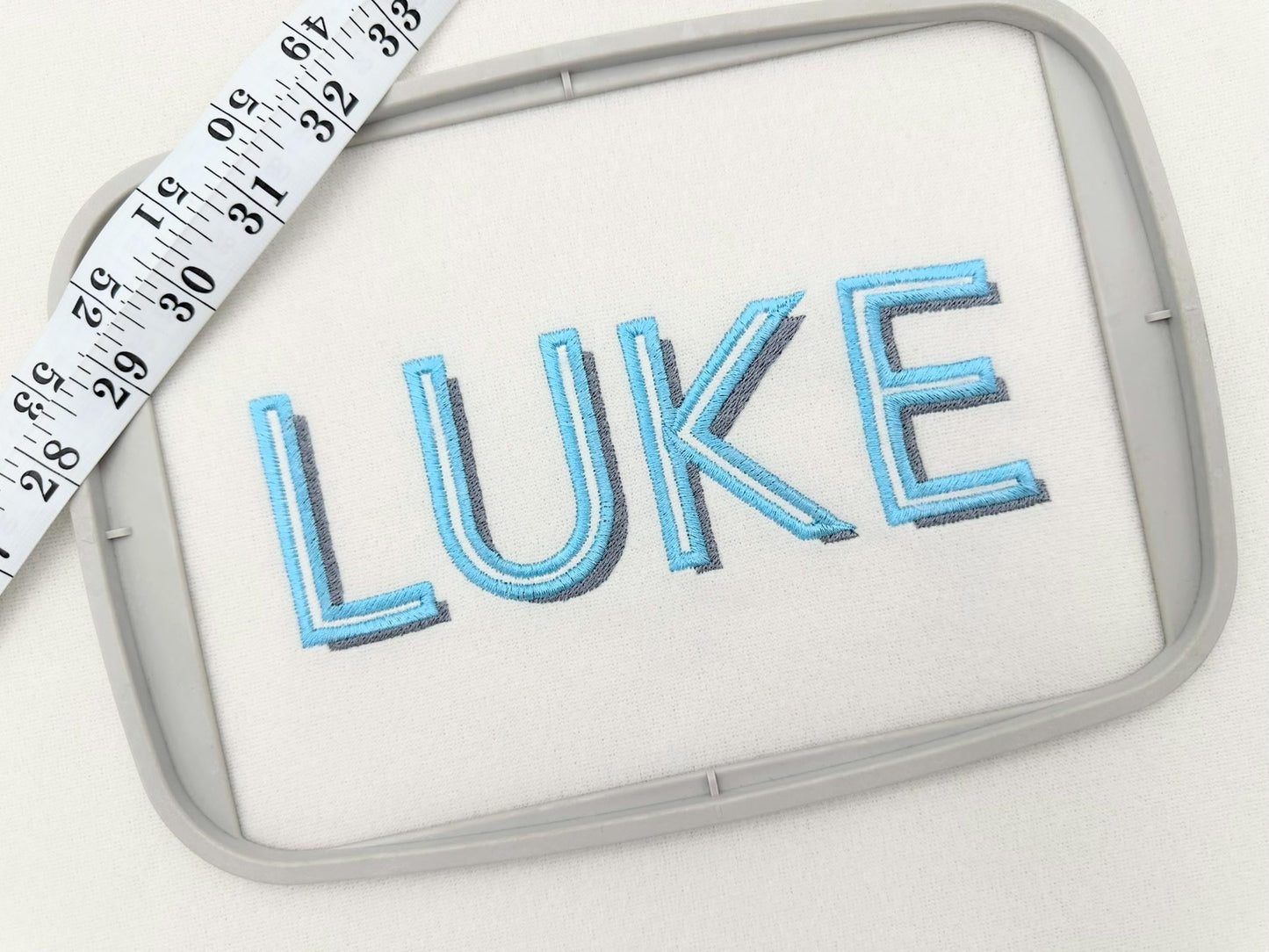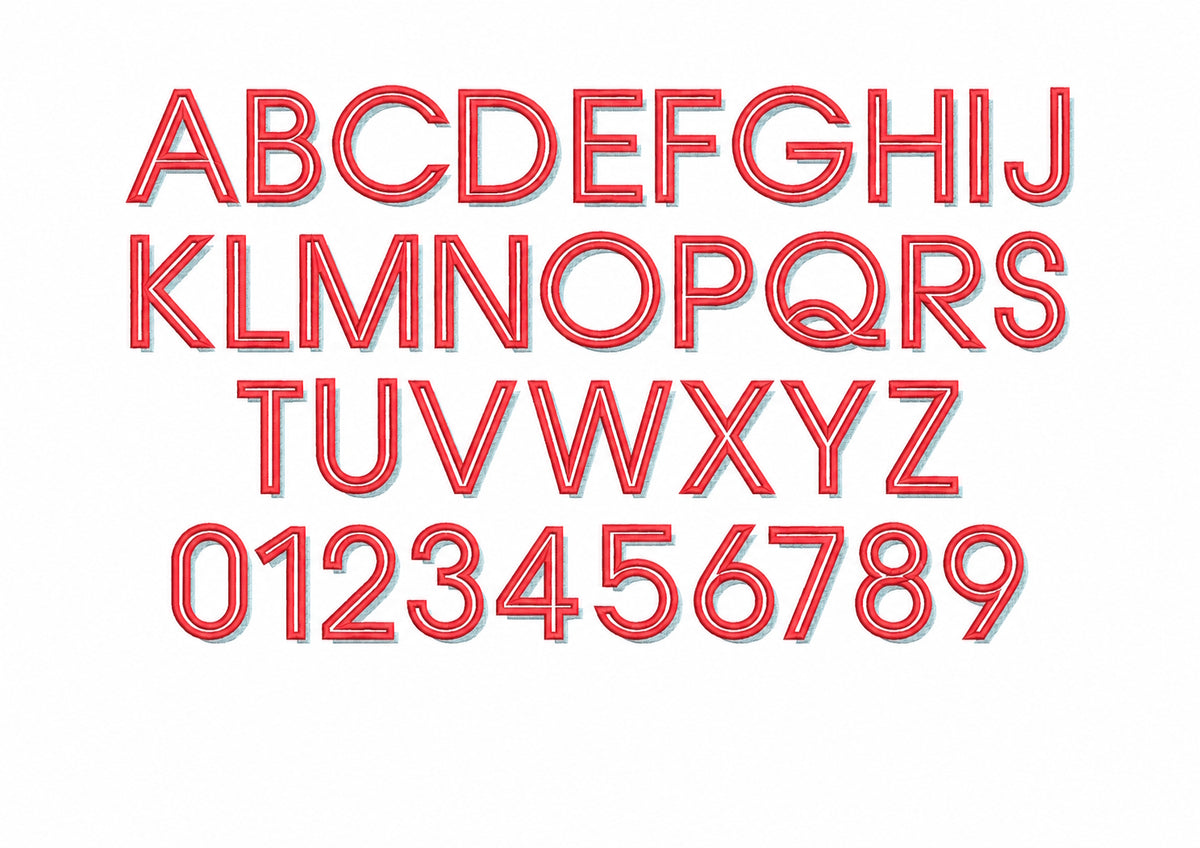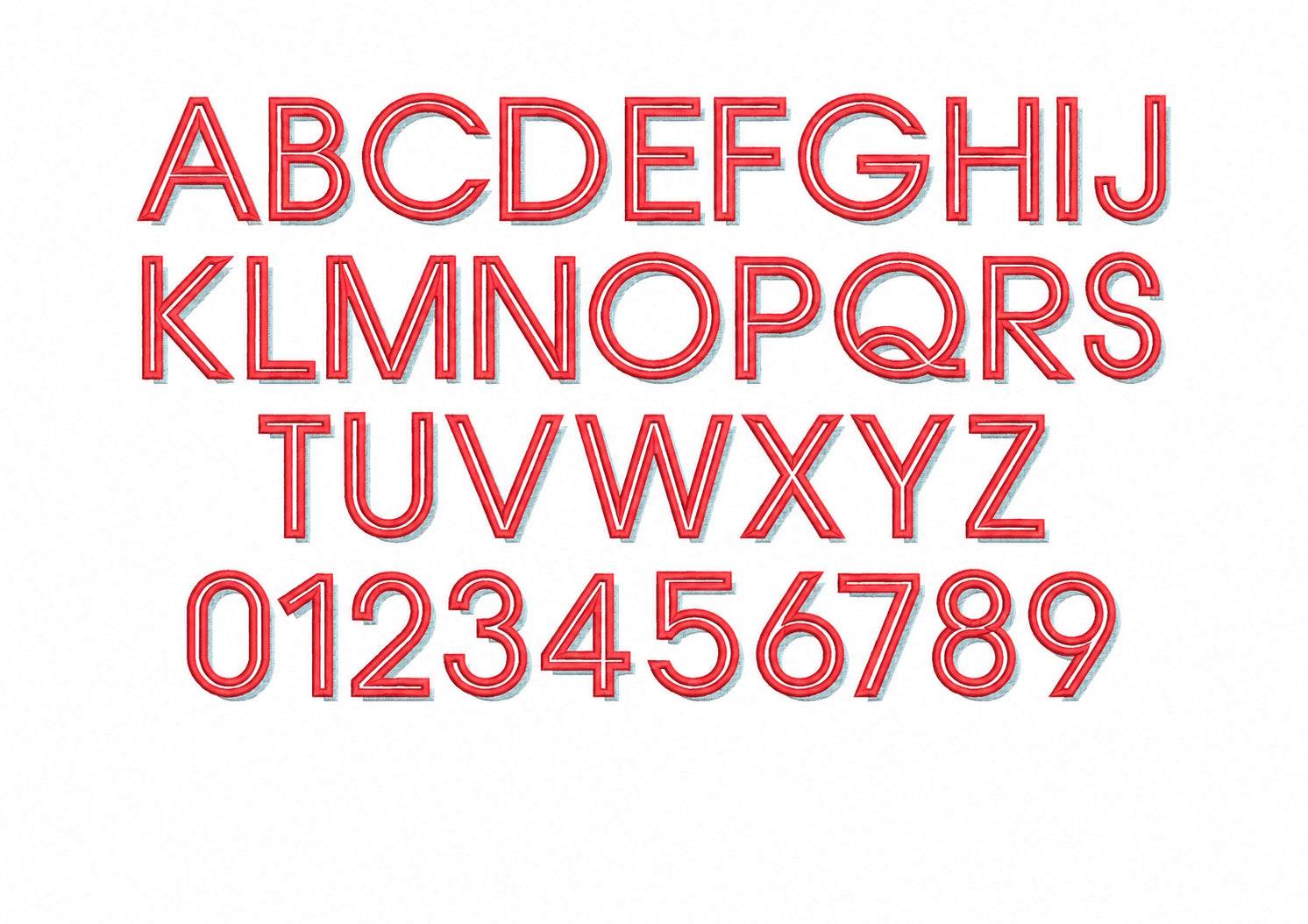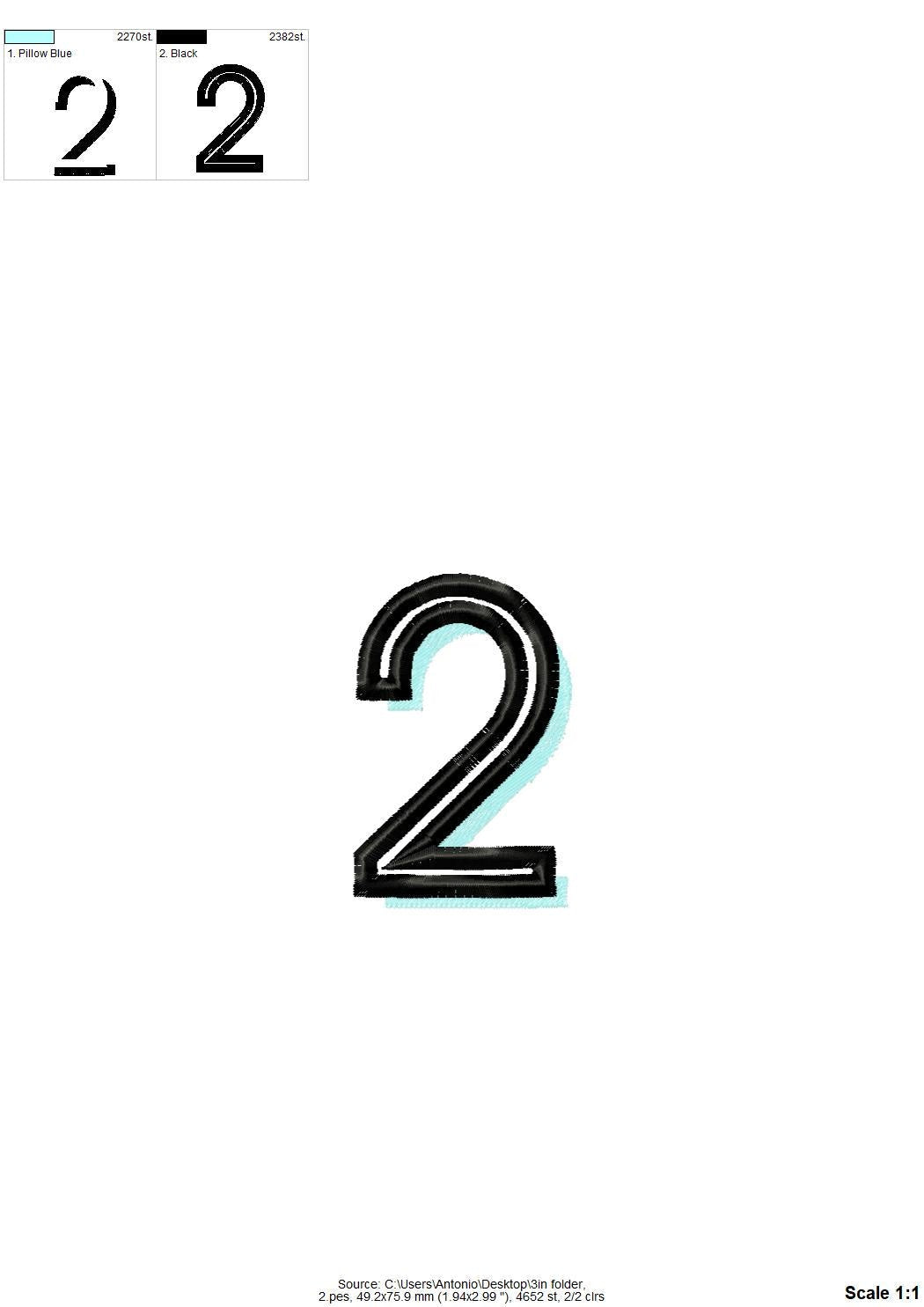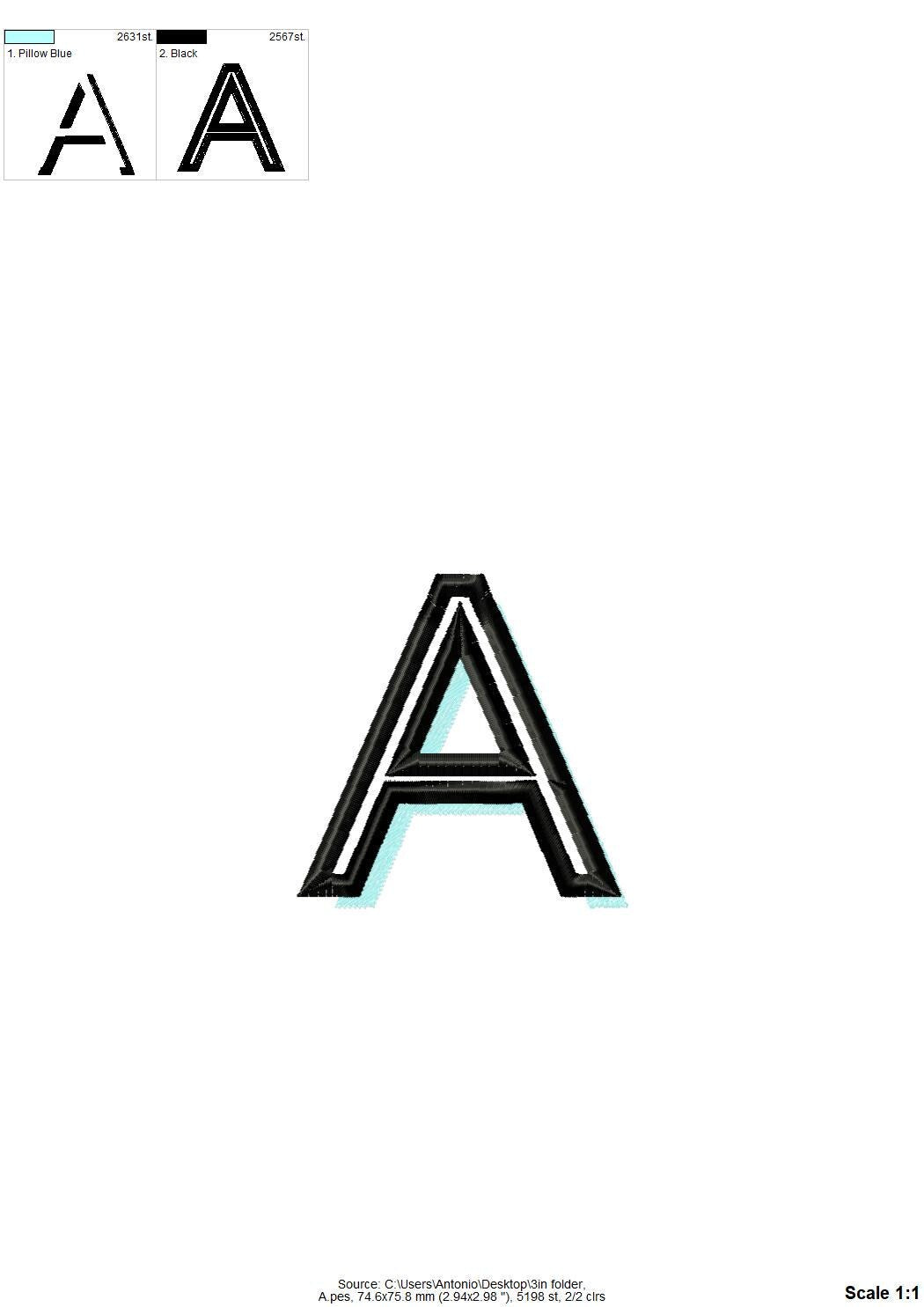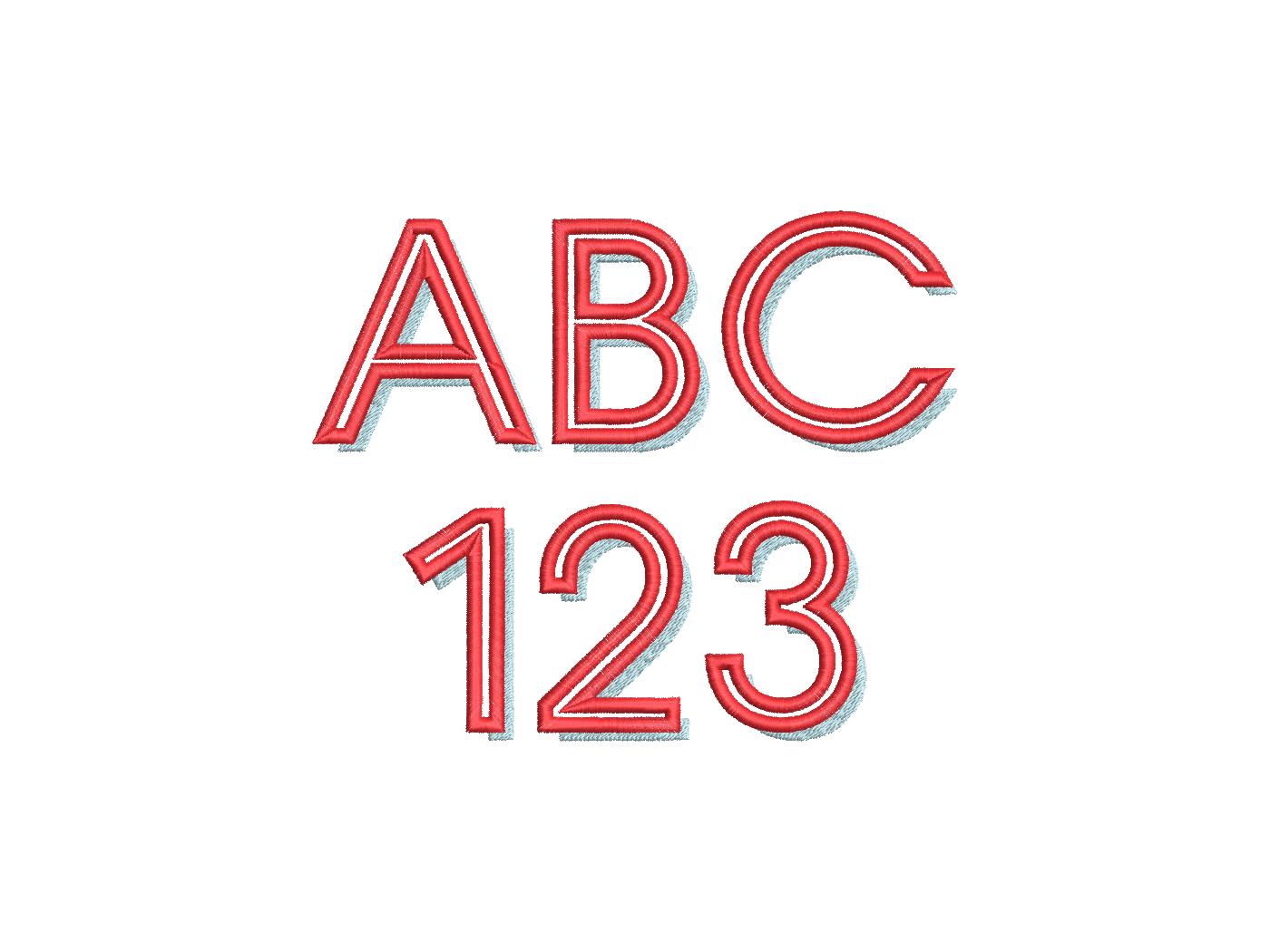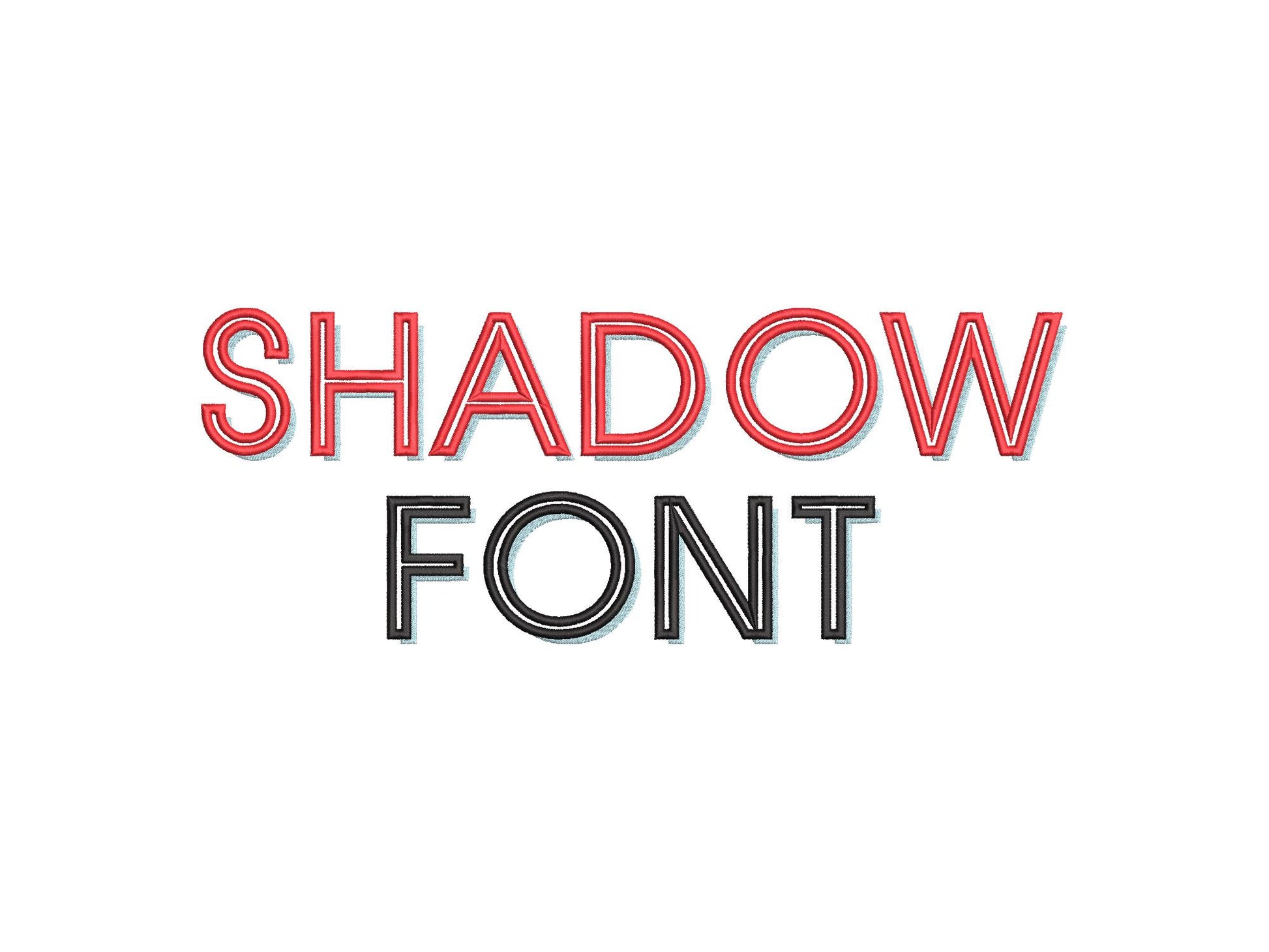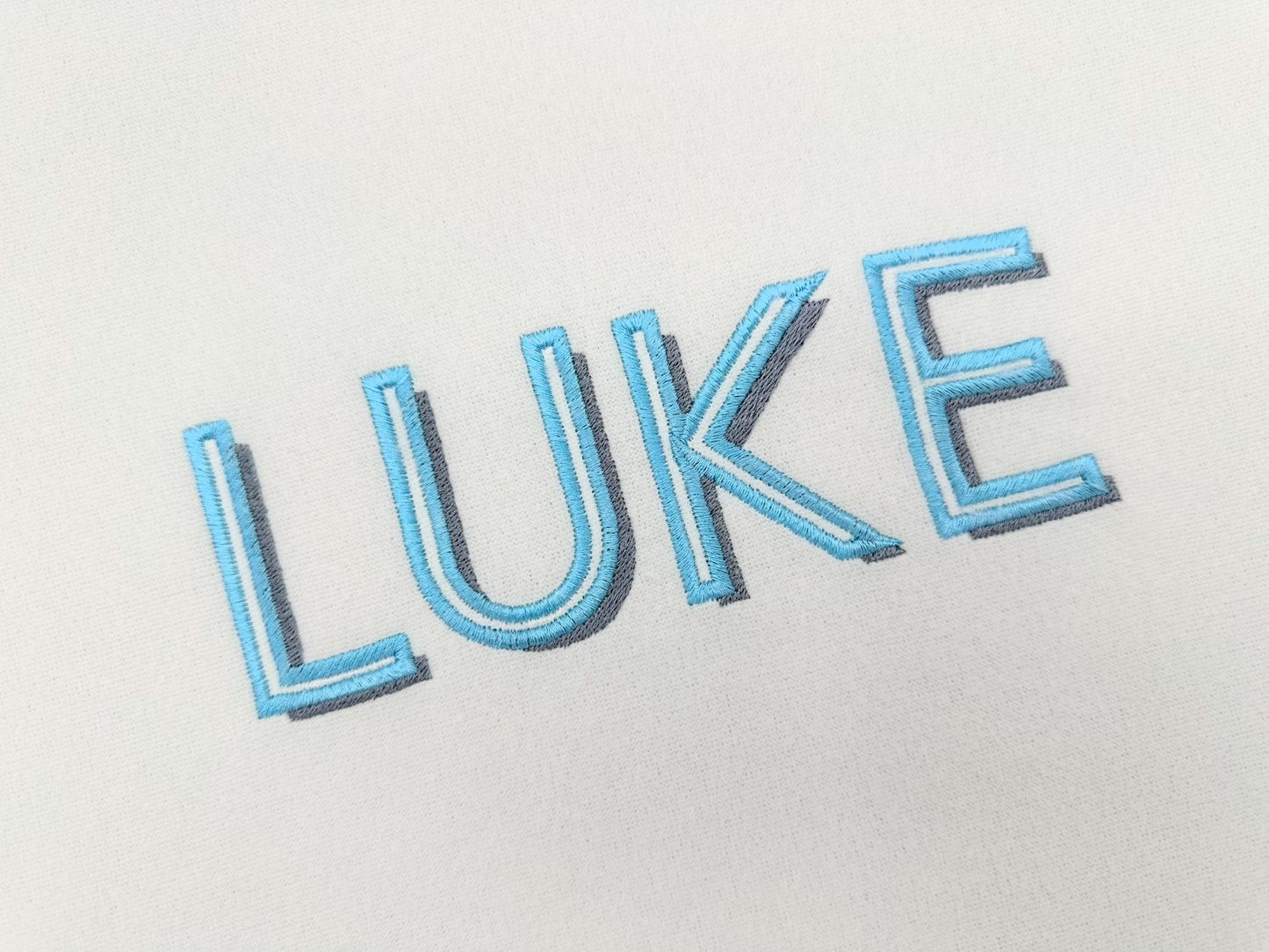
Shadow Athlete Block Font
This font features satin stitch outlines with a fill stitch shadow, while the letters themselves remain open, allowing the background fabric to show through for a light, airy look. Such a cool effect!